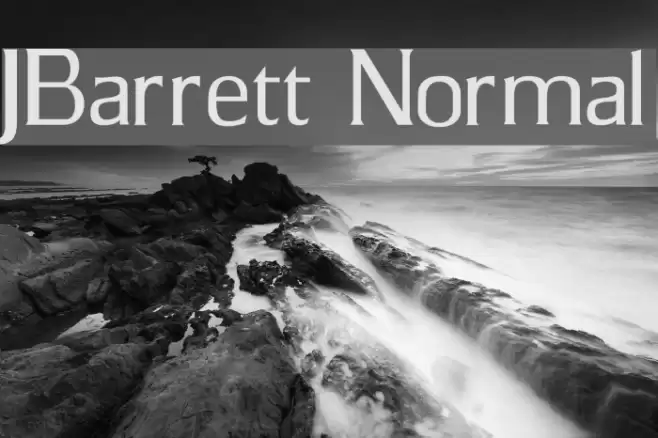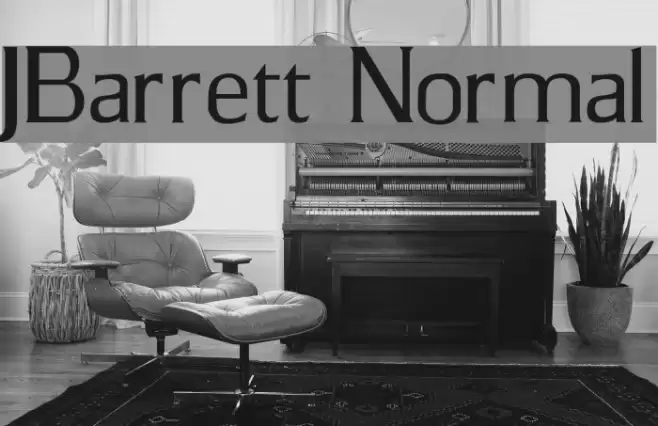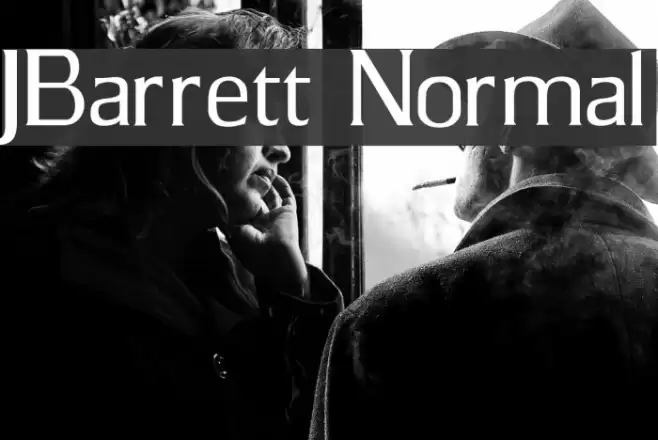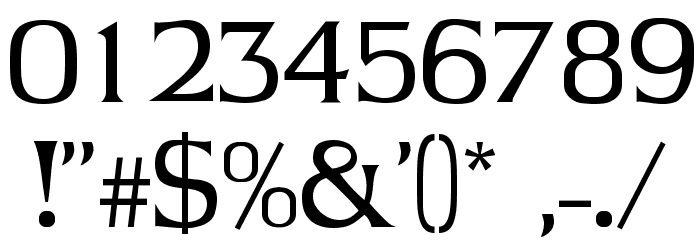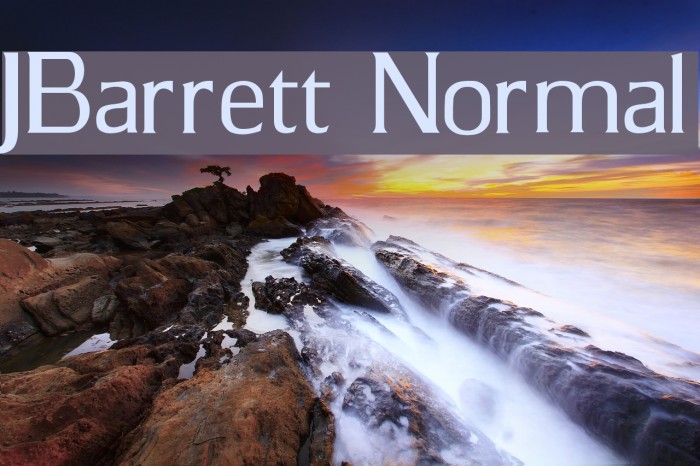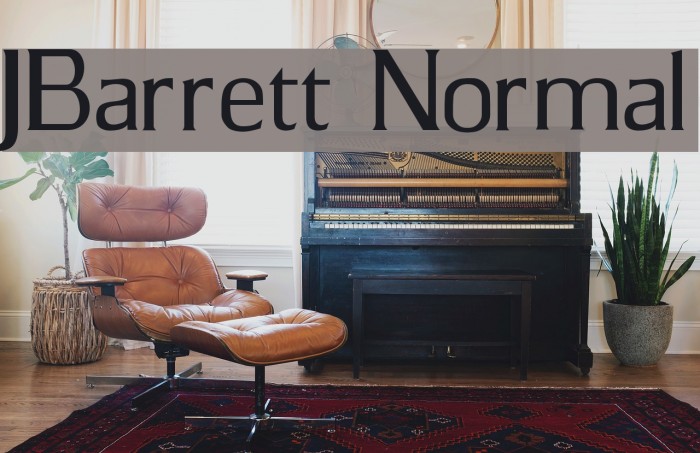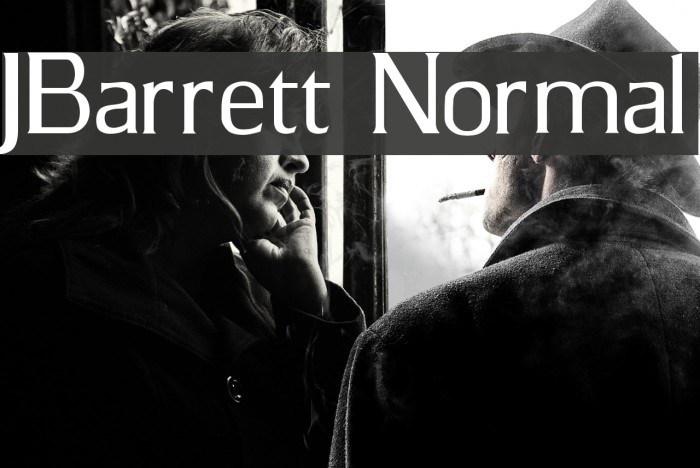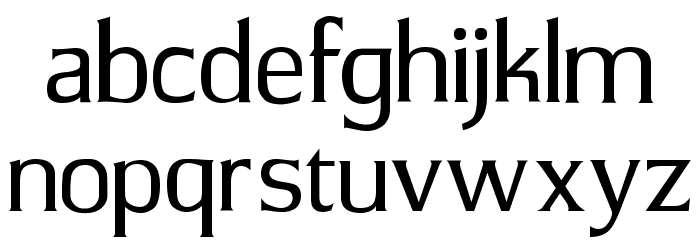
JBarrett Normal Font
JBarrett Normal Description
This font presents a modern and sophisticated look with its clean lines and balanced proportions. The uppercase letters exhibit a strong presence with slightly condensed forms, while the lowercase letters maintain a harmonious flow. The numerals are clear and legible, making them suitable for various applications. Special characters are well-integrated, enhancing the font's versatility. The overall design is sleek and contemporary, making it ideal for projects that require a professional yet stylish appearance.
A modern, sophisticated font with clean lines and balanced proportions from Uncategorized fonts.
- Proposed Projects: Ideal for branding, editorial design, advertising, and digital interfaces.